15 typefaces designers love to use in 2026
From timeless classics to fresh favourites, these are the fonts the creative community keeps returning to.
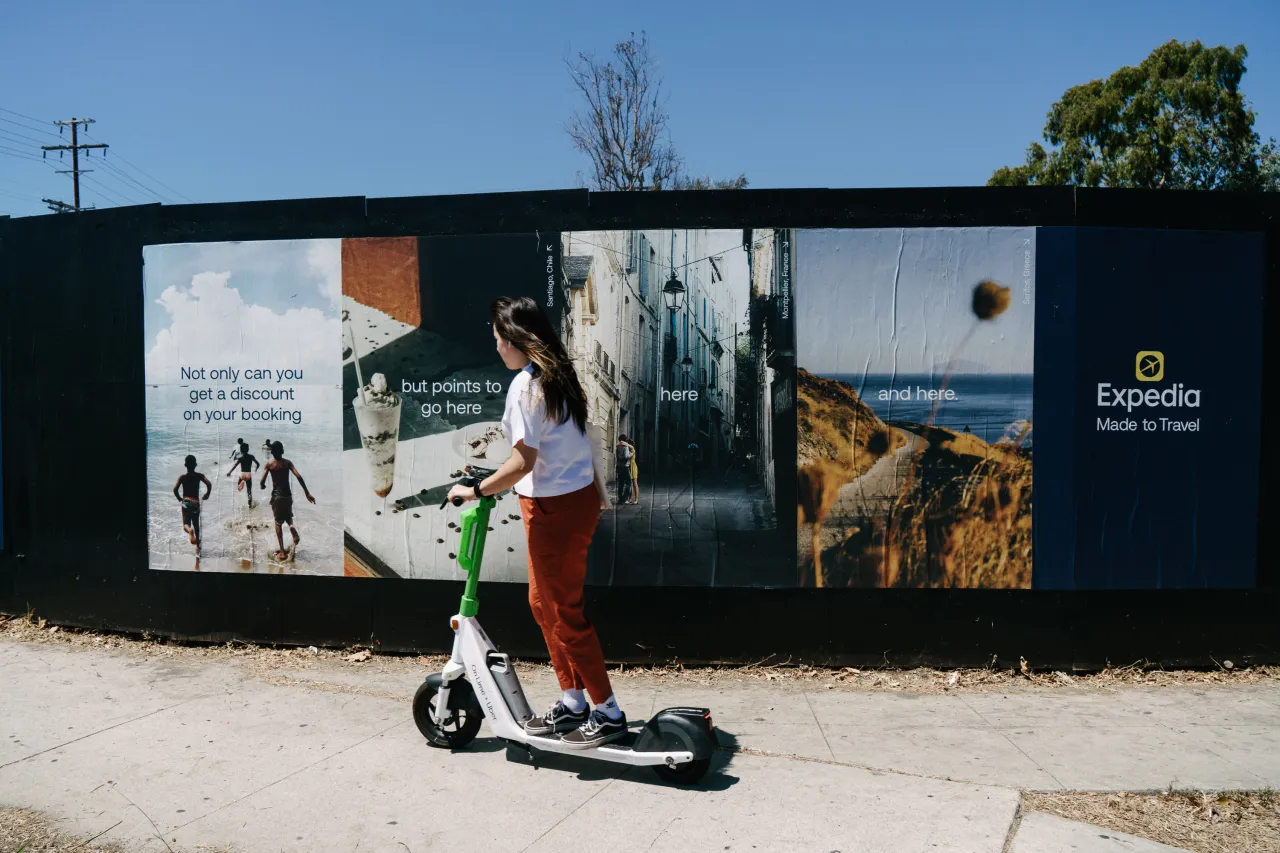
Aeonik in use for Expedia
Ask a designer which typeface they're using and you'll often get a considered answer. Ask which one they actually reach for at the start of a new project, and the truth may be more revealing. That's essentially what we did in Creative Boom's annual State of Creativity survey... and the results are in.
The fonts that have come up most often aren't obscure newcomers trying to signal distinction. They're workhorses, classics and a few sharper, more characterful choices that suggest designers know exactly what they want: type that works hard and holds its own.
Helvetica, Poppins and Futura lead the count by some distance. But further down, the picture gets interesting. The presence of Inclusive Sans reflects a genuine shift in thinking about accessibility, while Bricolage Grotesque, Degular, Trim Poster and Aeonik suggest a growing appetite for type with a bit more texture and personality.
Here are the 15 typefaces our community can't stop using and admiring in 2026.
1. Helvetica
Our number-one entry is not the biggest surprise. The neo-grotesque, designed by Max Miedinger and Eduard Hoffmann in 1957, remains the most-nominated typeface in our survey by a considerable margin. Critics argue it's the lazy choice: safe, ubiquitous, characterless. Defenders point out that neutrality is a feature, not a bug. Either way, Helvetica Now, Monotype's 2019 update with three optical sizes for micro, text, and display use, has given this timeless font fresh relevance for the digital age. Nobody gets fired for using Helvetica.
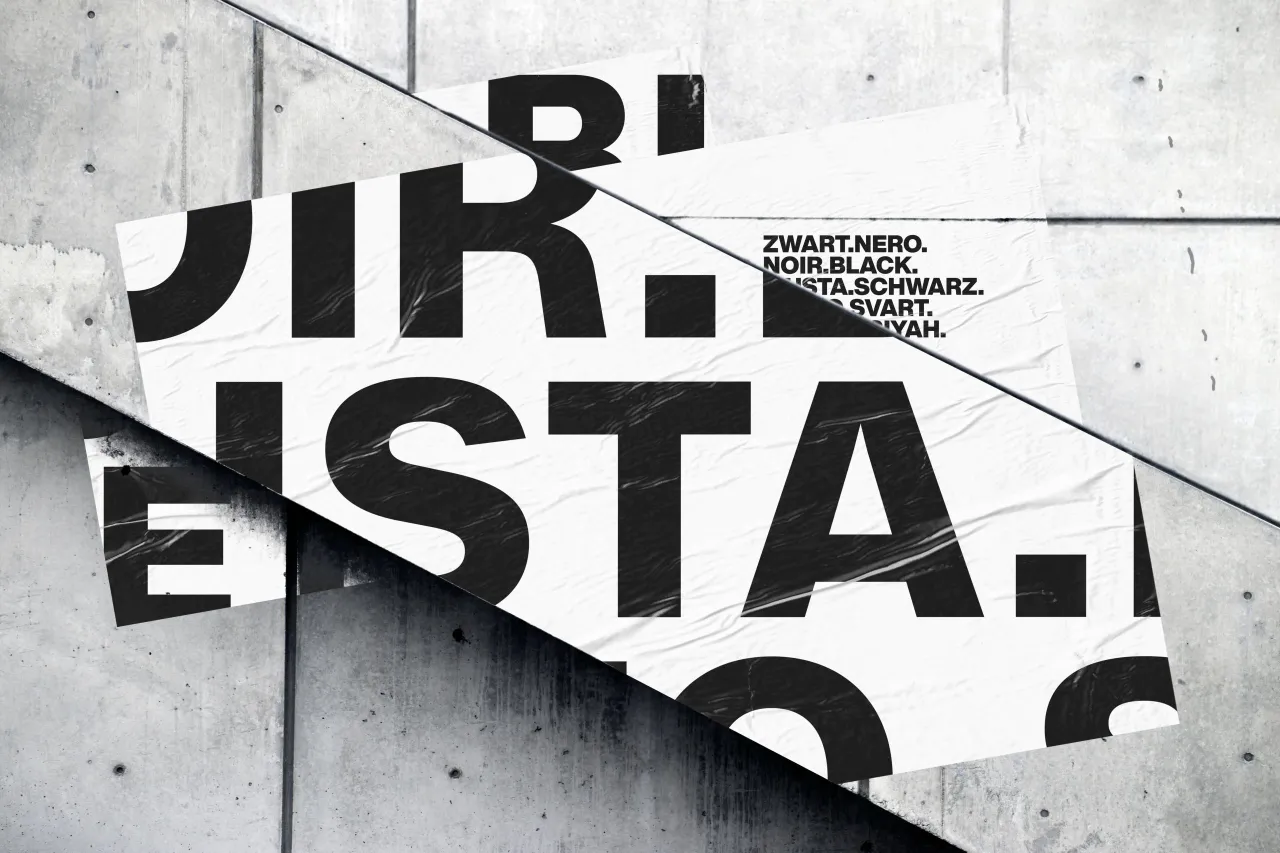
Helvetica Now via Monotype
2. Poppins
This geometric sans-serif from the Indian Type Foundry, designed by Ninad Kale and Jonny Pinhorn, is one of the most downloaded typefaces on Google Fonts. Its near-monolinear letterforms, generous x-height and clean geometric construction give it a friendly, modern feel that works across fintech apps, lifestyle brands and nonprofits alike. A free font with a full range of weights, it supports both Latin and Devanagari scripts.
3. Futura
Paul Renner's 1927 geometric masterpiece is nearly a century old and still feels contemporary. Built from circles, triangles and straight lines in the spirit of the Bauhaus, it's seen everywhere from Wes Anderson's title sequences to campaigns for Louis Vuitton, Nike and FedEx. Its low x-height gives it an elegant, almost classical quality at display sizes. For designers seeking geometric authority, Futura remains the obvious choice. It's also another one to get the Monotype treatment, refreshing it for the digital era with the launch of Futura Now.
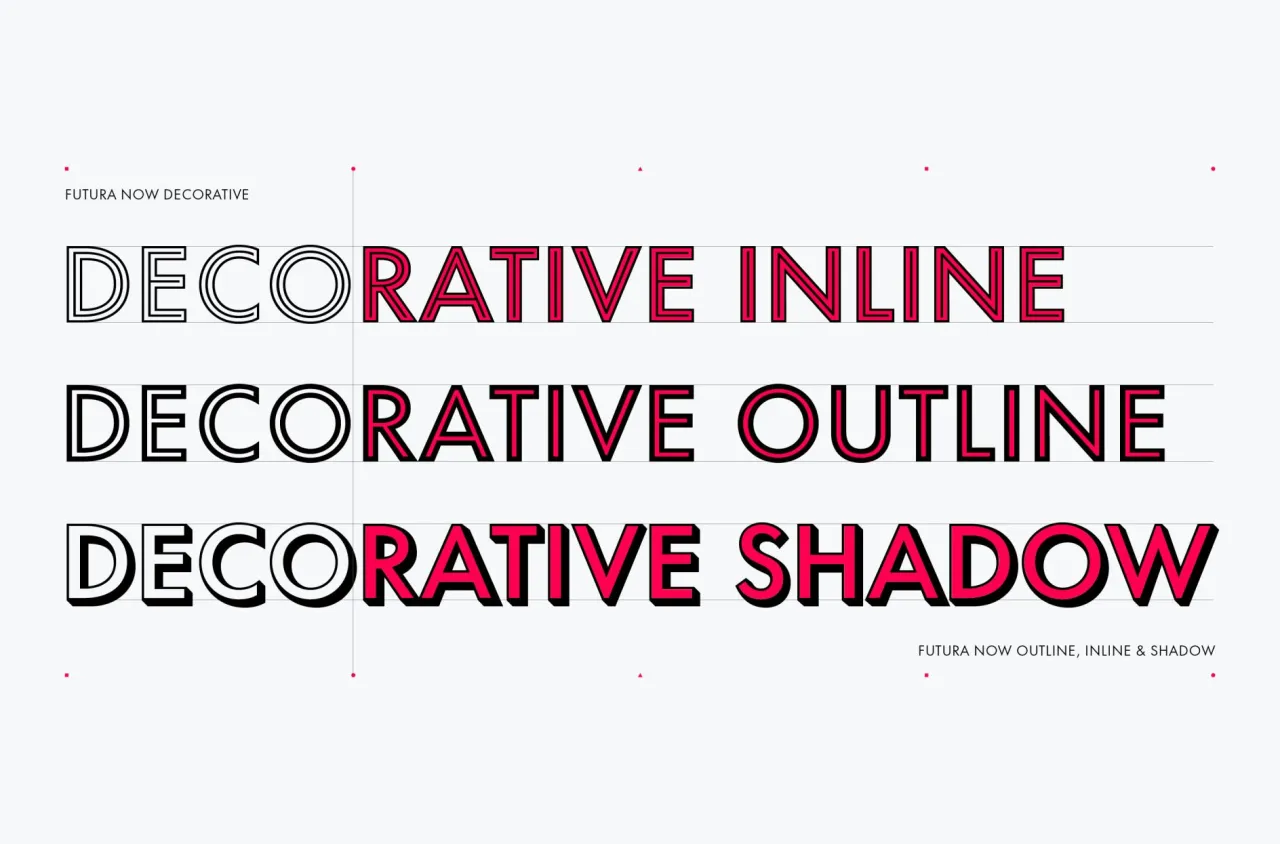
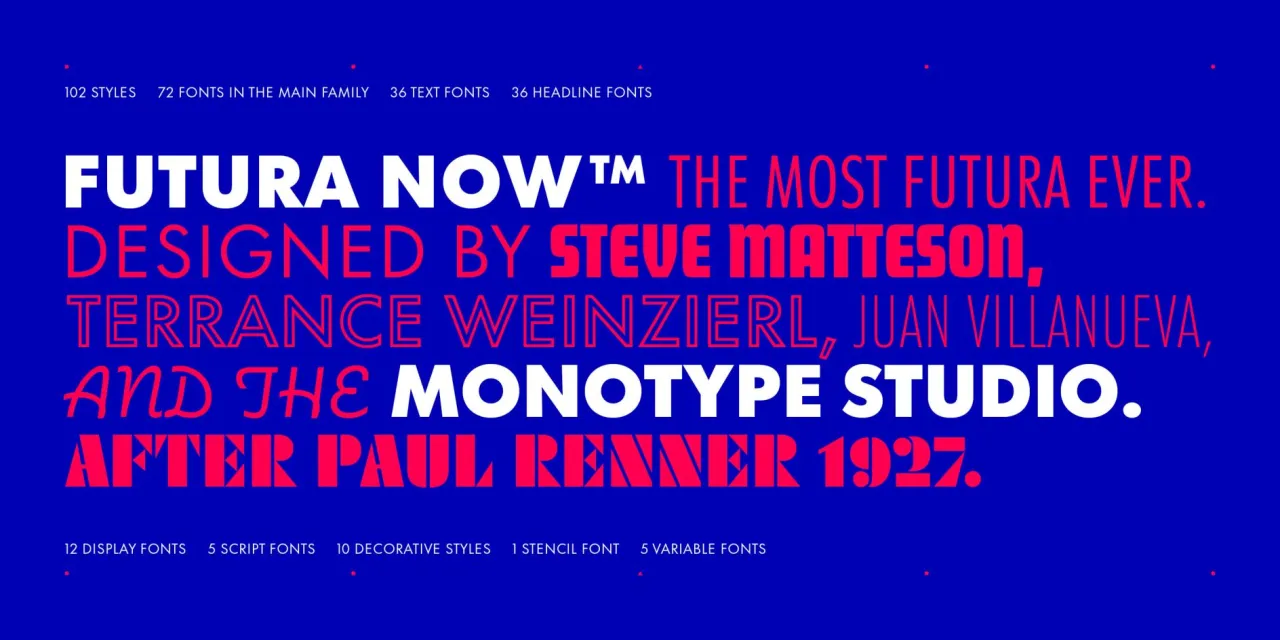
4. Inter
Designed by Rasmus Andersson and released in 2017, Inter has become the defining UI typeface of the current era. Created for screen legibility, particularly at small sizes, it features a tall x-height, open apertures and ink traps that improve legibility in dense interfaces. Free, open source and available as a variable font, it was one of the most accessed Google Fonts in the 12 months to May 2025. Its presence here alongside Helvetica and Futura suggests it's earned the status of a modern classic.
5. Inclusive Sans
Designed by Australian type designer Olivia King and released as a fully variable family on Google Fonts in 2025, Inclusive Sans was built around accessibility research. Its non-mirrored letterforms, wide-open counters, higher x-height, and generous spacing are designed to support readers who are visually impaired or neurodiverse. Crucially, though, it doesn't look like a compromise, sporting the confidence of a contemporary neo-grotesque.
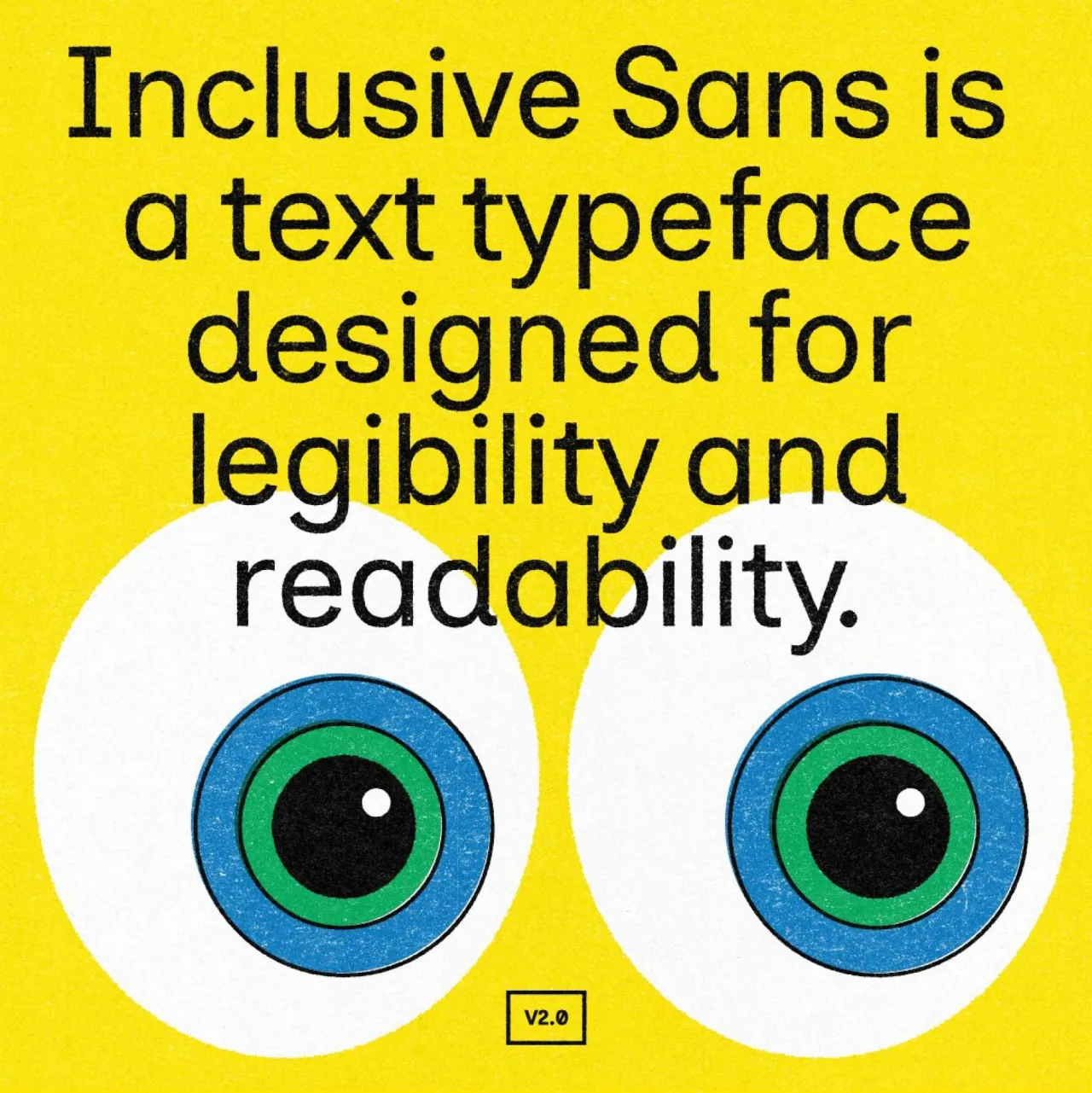
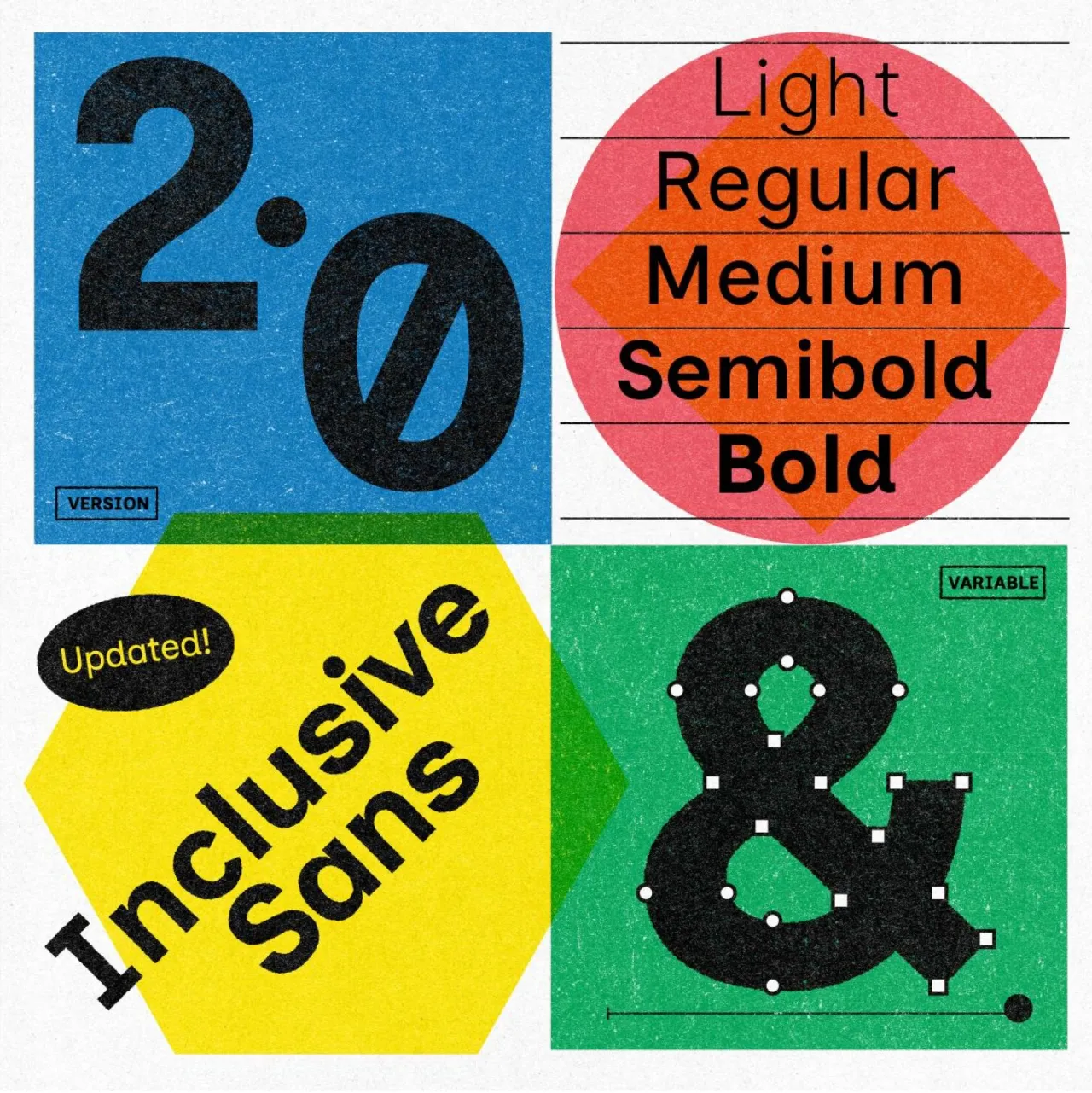
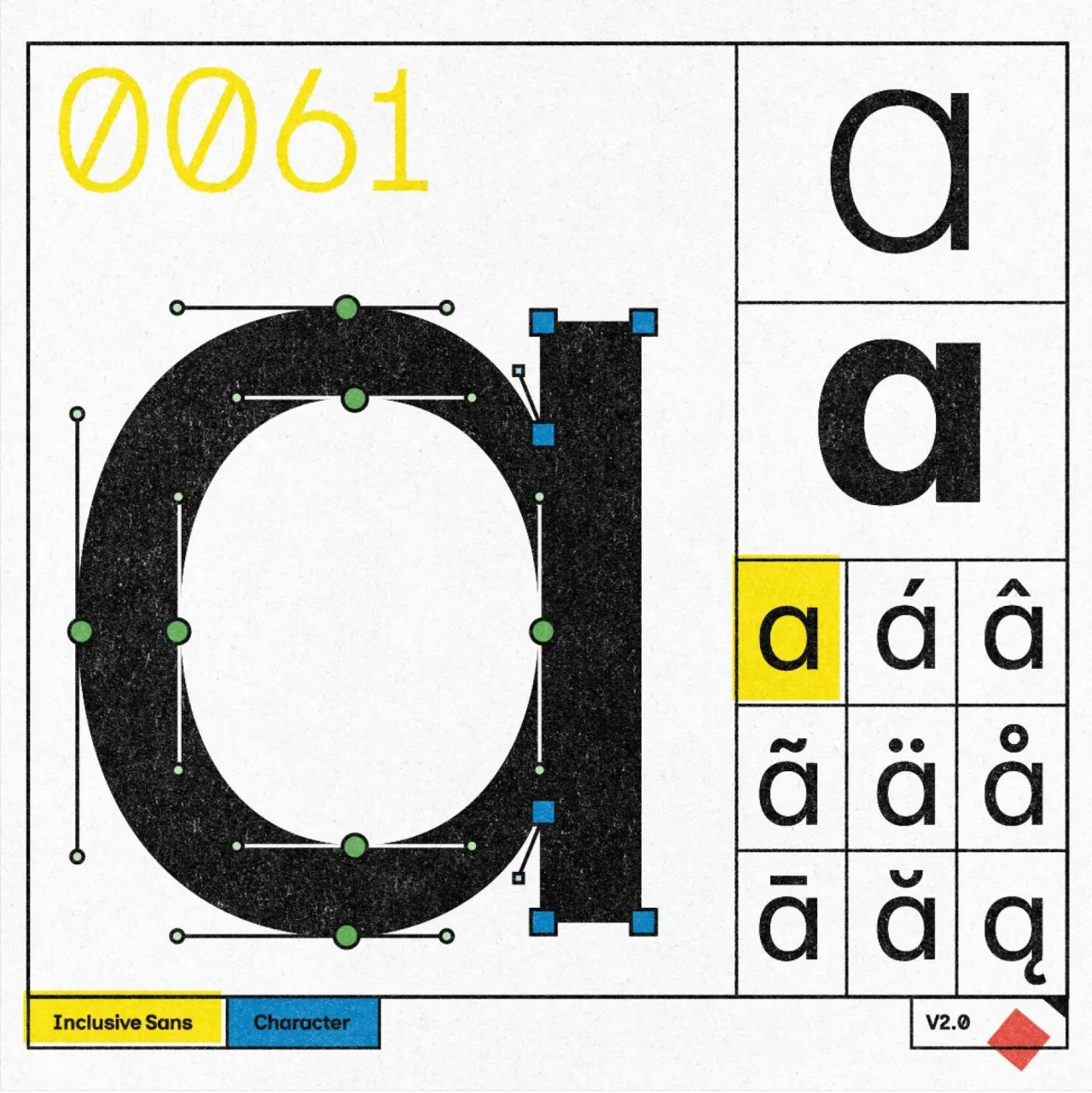
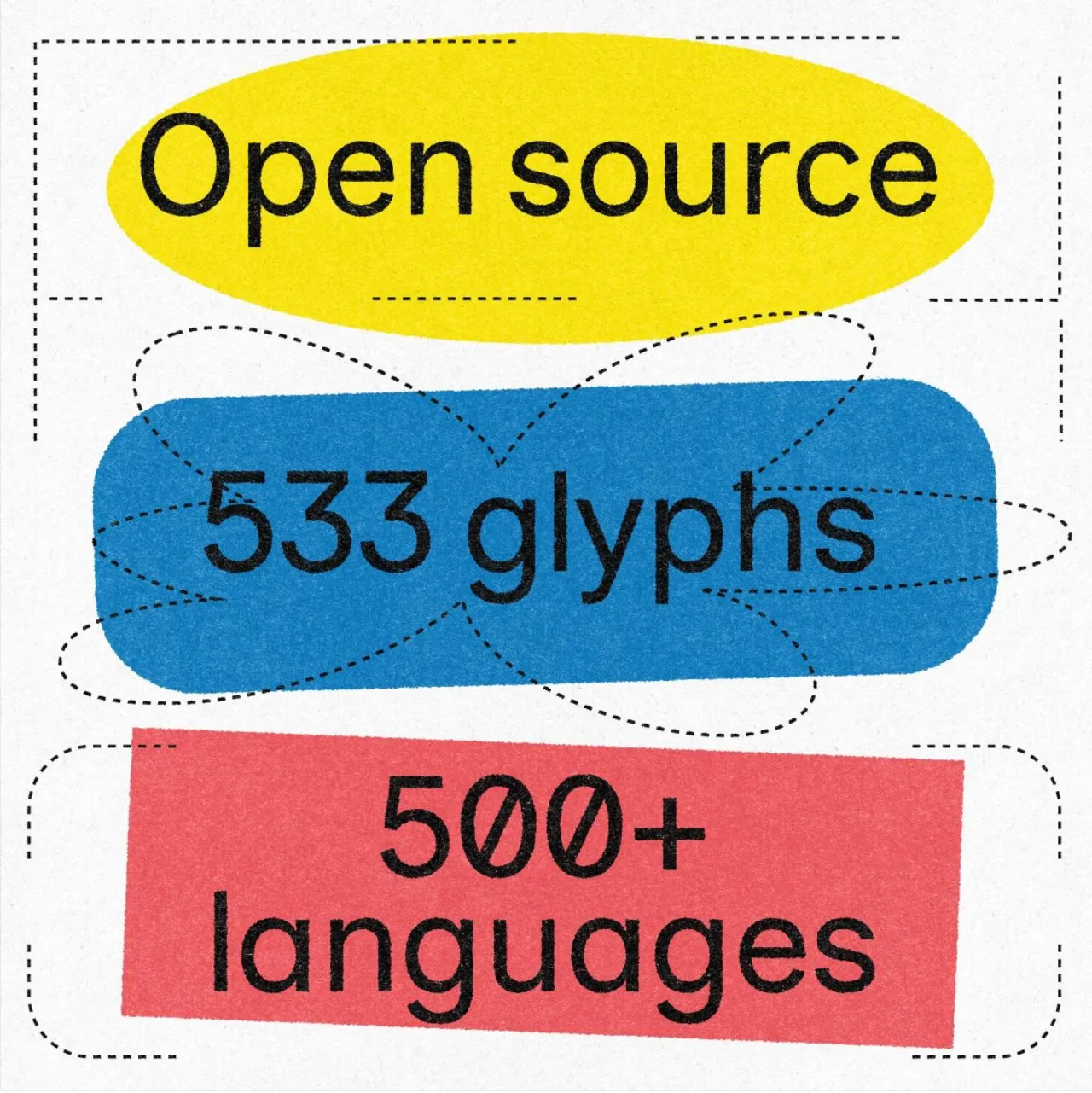
6. Avenir
Adrian Frutiger designed Avenir in 1987 and considered it his finest work. Like Futura, it takes the circle as its formal basis, but with a humanist adjustment that makes it warmer and more comfortable over long text. Amsterdam uses it as its corporate typeface, Disney+, Bloomberg, and Snapchat have all put it to work, and it's been bundled in various forms with iOS and macOS since 2012. In short, Avenir has become quietly omnipresent in a way that feels earned rather than imposed.
More recently, its evolution has gone global. With Avenir Next World, Monotype expanded the family to support over 150 languages and scripts, from Arabic to Thai, making it a truly international workhorse for brands operating across borders.
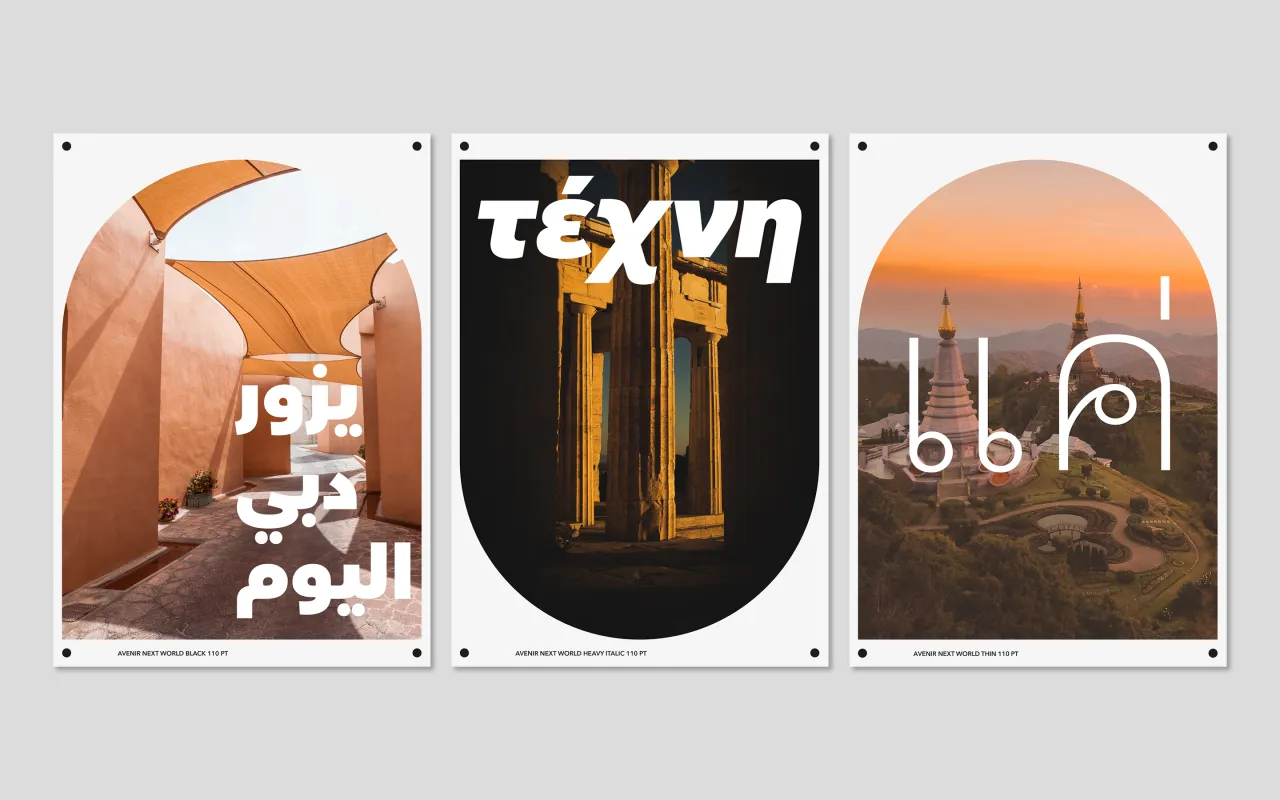
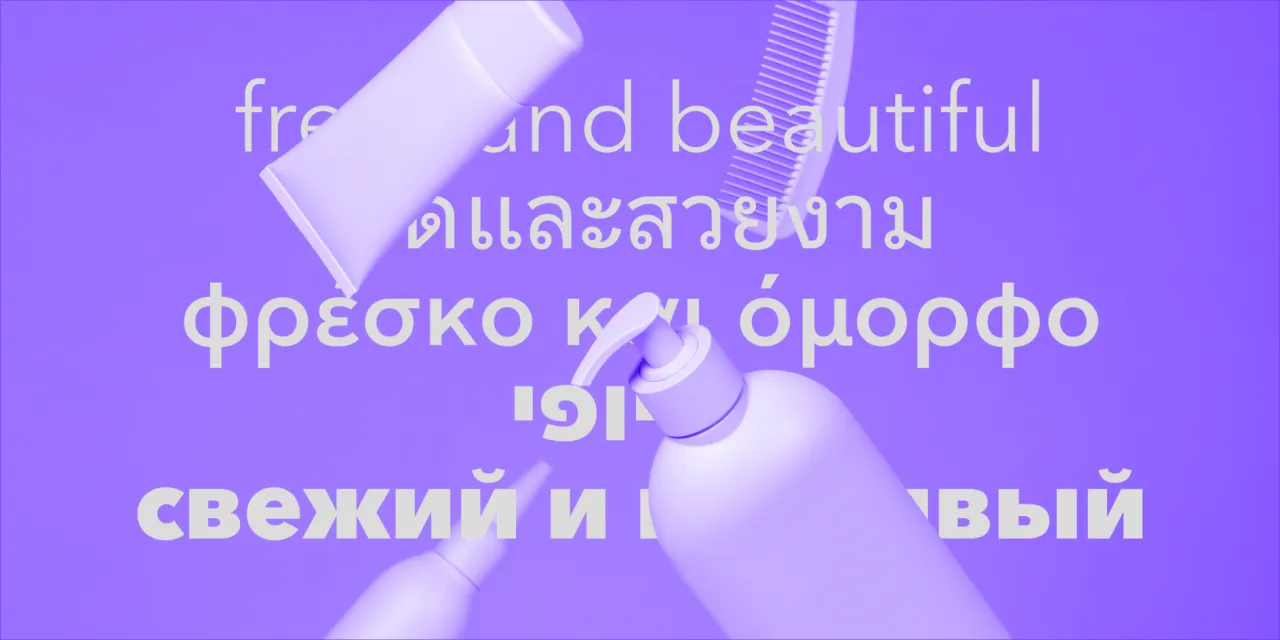
7. Open Sans
Steve Matteson's humanist sans-serif, released by Google in 2011, has been one of the most widely used typefaces on the internet for over a decade. Its wide apertures, large x-height and neutral-but-friendly character make it a reliable workhorse for web and app interfaces. In an era of increasingly sophisticated type choices, Open Sans persists because it simply does the job without complaint.
. In use by [Garbett](https://garbett.com.au/) for Career Trackers](https://media.creativeboom.com/514ca61a-e599-4ae7-bed3-a107421ce0f3/conversions/e8ba48815e7898e3d263f3452e50572efdb4fd9a-medium.webp)